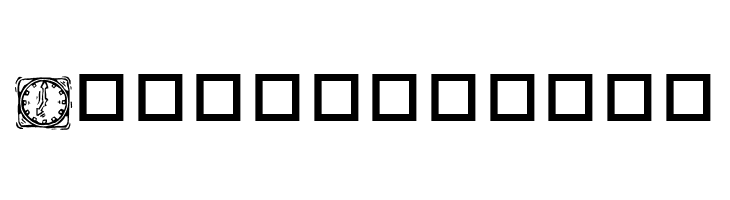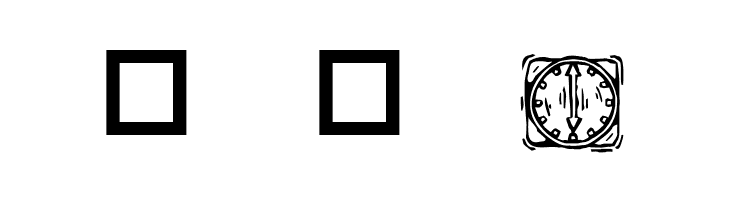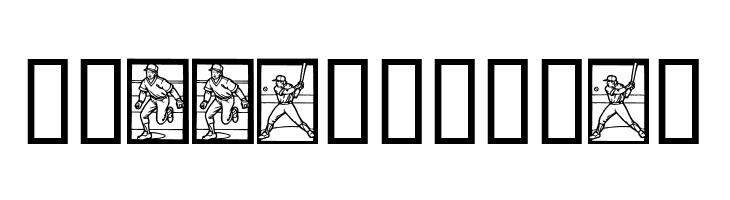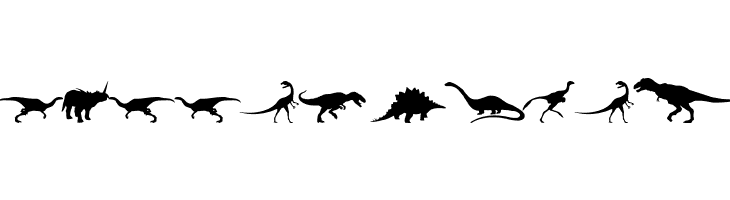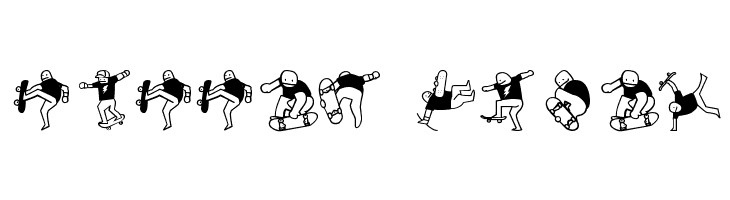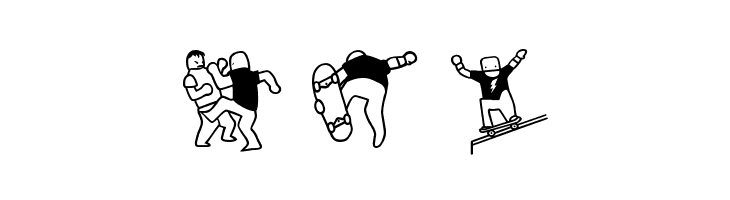
A decorative collection of time-themed dingbats with clock faces and AM/PM symbols.
A pictorial font with baseball player illustrations for each character.
A decorative font made entirely of dinosaur silhouettes.
( Fonts by Rodrigo German - RASDESIGN )
A playful set of cartoon-style skateboarding illustrations.
( Fonts by Klaus Johansen - www.listemageren.dK )
Ornamental font with cherub illustrations and bold square placeholders.
( Fonts by Blue Vinyl - Jess Latham - www.bvfonts.com )
A Halloween-themed decorative set of icons and graphics.
A playful, witch-themed pictorial display font.
A decorative Halloween-themed font with each character as a unique illustration.
Halloween-themed dingbat font with whimsical illustrations.
A playful, Halloween-themed decorative font with unique character designs.
A decorative font with cartoon-style illustrations themed around drinking and socializing.
( Fonts by Emerald City Fontwerks - Steven J. Lundeen - www.speakeasy.org/~ecf/ )
A pictorial silhouette font with narrative scenes for each character.
( Fonts by www.floodfonts.com )
Cartoon aquatic-themed dingbat icon set.
( Fonts by Have Fun with Fonts )
A decorative font inspired by traditional Chinese dragons, featuring intricate and bold designs.
An elegant, calligraphic script inspired by fantasy languages.
A decorative script inspired by Tolkien's Tengwar, featuring ornate and flowing characters.
( Fonts by Peter Wiegel - www.peter-wiegel.de )
An abstract, decorative design with intricate loops and curves.